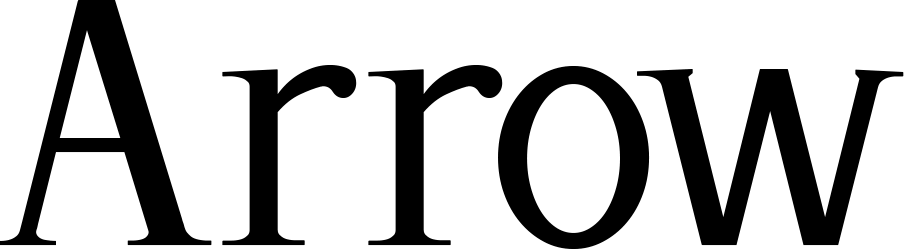
Arrow Font
Arrow font will be trendy for many formal designers due to its strong style. This serif font is for those who like to experience power and confidence in their graphic designs, and being trendy is their concern.
Do not forget that combining other font styles with this modern font can prepare you to design fashion magazine posters and covers.